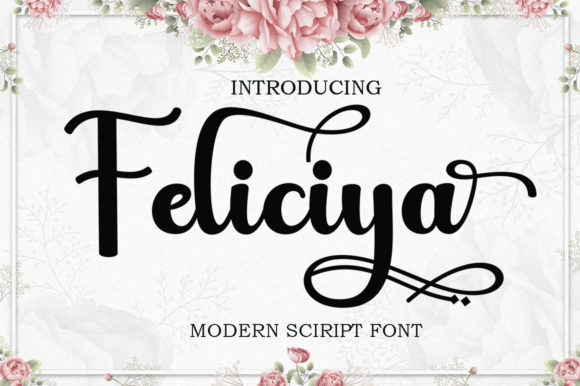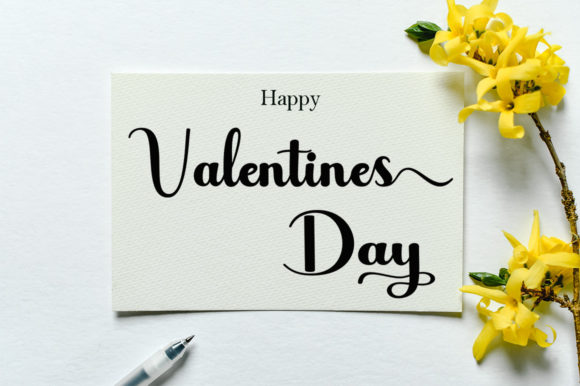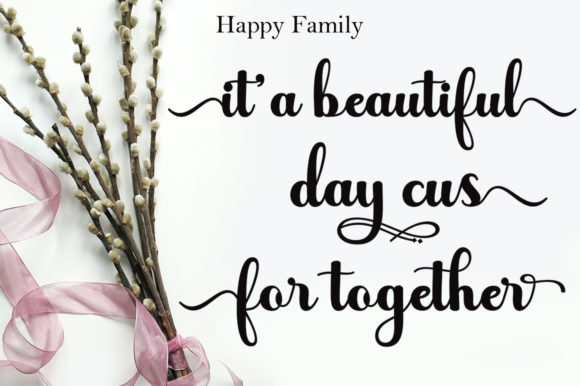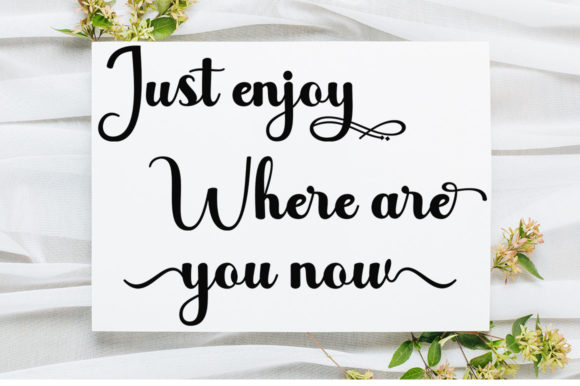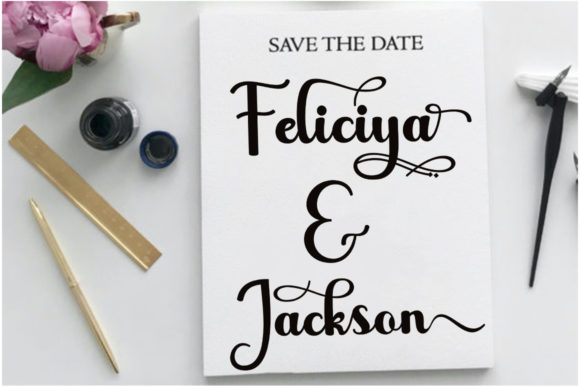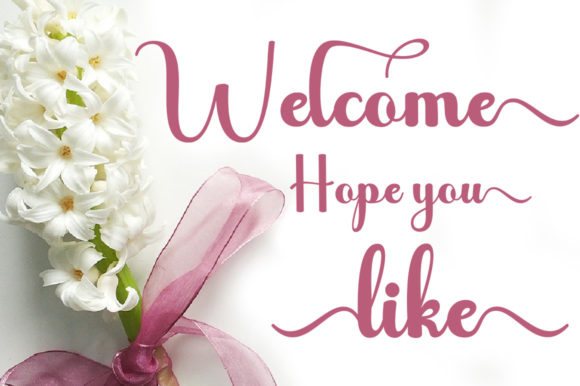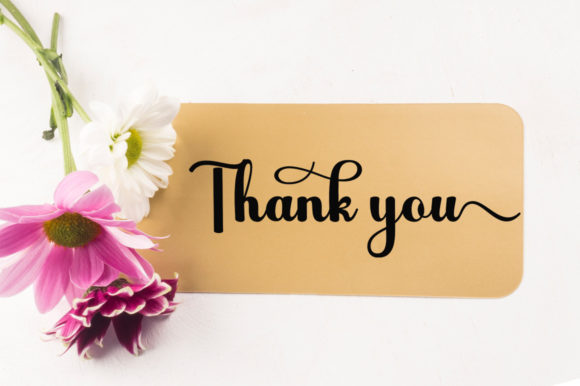
Feliciya Font
“Feliciya is not just a font; it’s a work of art. This soft and sweet calligraphic typeface is a testament to the beauty of typography. With its characters dancing along the baseline, Feliciya is designed to make your work stand out. It’s more than just a typeface; it’s a tool for creating stunning visuals that captivate and inspire.
One of the standout features of Feliciya is its versatility. It is perfect for a wide range of projects, from logos and wedding invitations to headings, t-shirts, letterheads, signage, labels, news, posters, badges, and more. Whether you’re a professional designer working on a major project or a hobbyist creating personalized items, Feliciya is the font for you.
But Feliciya is not just versatile; it’s also fashionable. With its modern and stylish design, Feliciya is a font that stays ahead of the trends. It’s a font that makes a statement, a font that stands out. Whether you’re creating a logo for a cutting-edge fashion brand or designing a poster for a trendy event, Feliciya is the font that will help you make a statement.
Moreover, Feliciya is designed to look extraordinary in a variety of contexts. Whether it’s on a business card, a website, a billboard, or a t-shirt, Feliciya shines. Its unique style and character make it a versatile and adaptable font that can elevate any design.
But the beauty of Feliciya goes beyond its design. It’s also a font that’s easy to use. With its clear and legible characters, Feliciya is a font that’s easy to read and understand. This makes it a great choice for designs that need to communicate clearly and effectively.
In conclusion, Feliciya is a superb handwritten font that’s perfect for any project. With its unique style and versatility, it’s a font that can make any design stand out. Whether you’re a professional designer or a hobbyist, Feliciya is a font that’s worth checking out.”